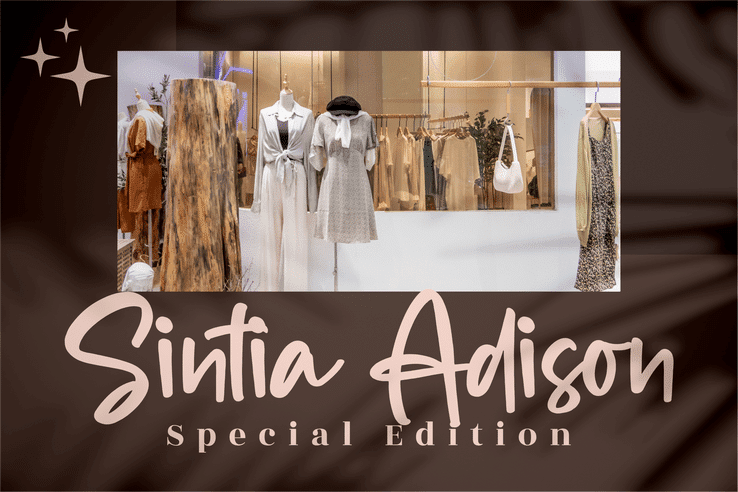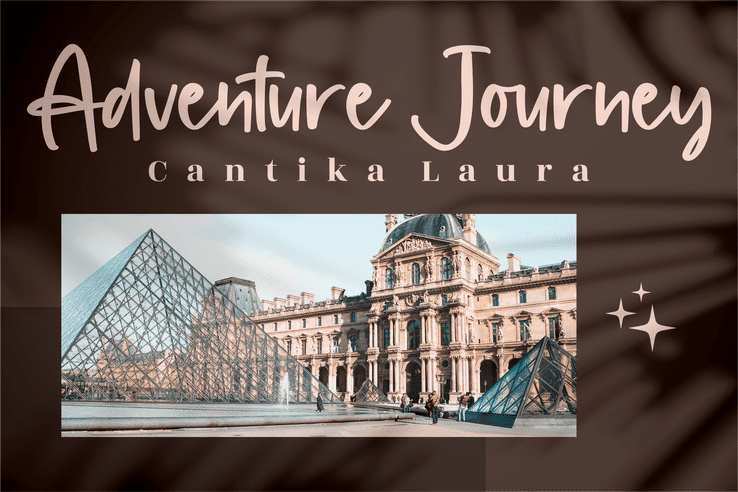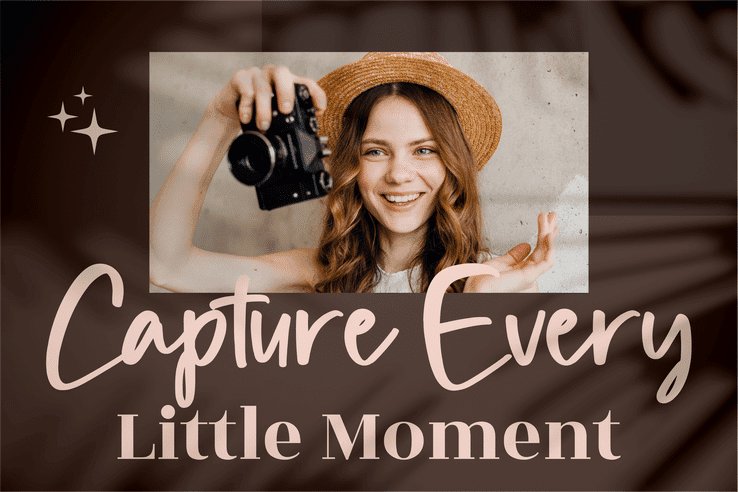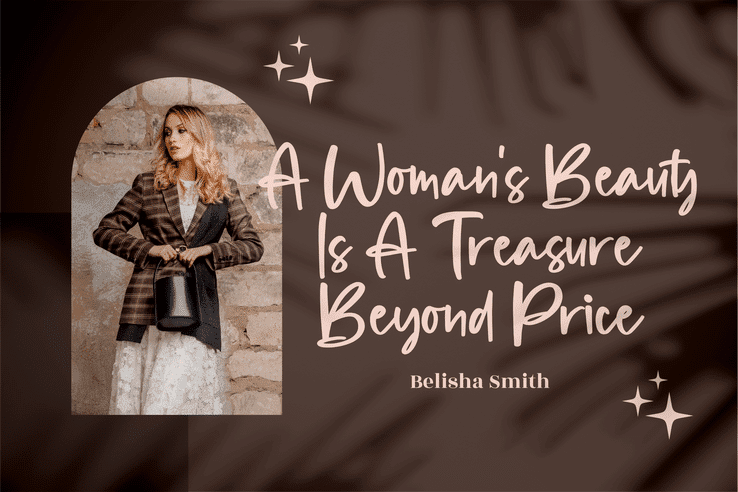
Alisha Gishela Handwritten Font
Alisha Gishela Beautiful Handwritten Font, from Perspectype Studio, is a handwritten font, suitable for any projects such as homeware designs, product packaging, mugs, quotes, posters, shopping bags, t-shirts, book covers, name cards, invitation cards, photography, watermark, special events, and all your other luxury projects that need a handwritten taste.